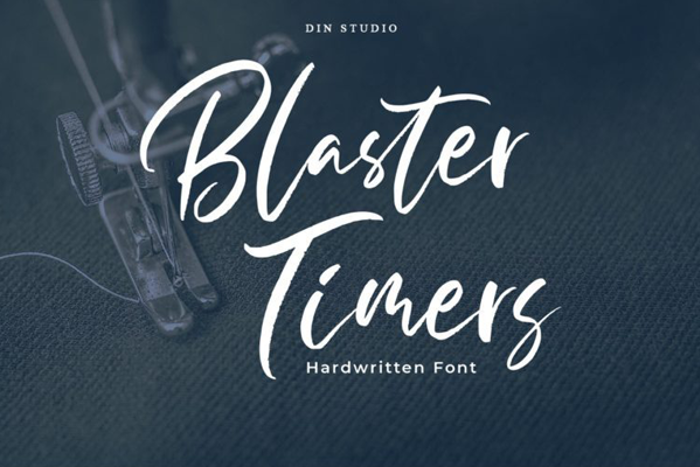
Blaster Timers Font
Blaster Timers is a classy brush font. Made for any professional project branding such as social media campaigns, ads, invitations, merchandise, and more. Every letter has a unique and beautiful touch.
• Beautiful Ligatures
• Numerals and Punctuations